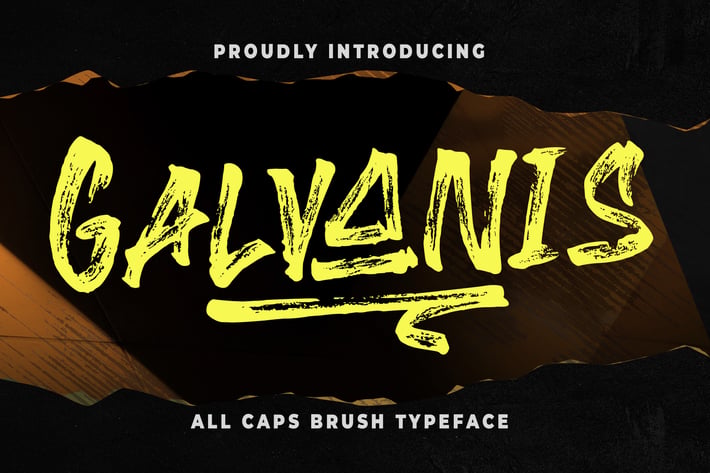
Galvanis Brush Advertisement Font
Introducing Galvanis - A brush font with all caps textures bold. This font will looks awesome and amazing in many way to your latest project. The font is perfect for movie title, logo, blogging, brand identity, book title, social media, branding, wedding invites, cards or simply use it in your next design project and suitable to use for many occasion.
- Ton of glyphs
- Numerals
- Alternate
- Multilingual Characters support for;Afrikaans, Albanian, Czech, Danish, Dutch, English, Estonian, Finnish, French, Hungarian, Italian, Latvian, Lithuanian, Norwegian, Polish, Portugese, Slovak, Slovenian, Spanisch, Swedish, Turkish.